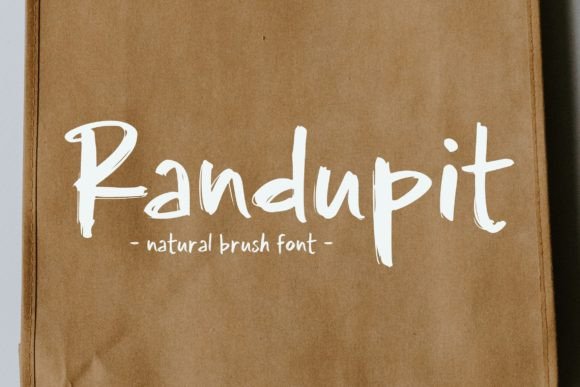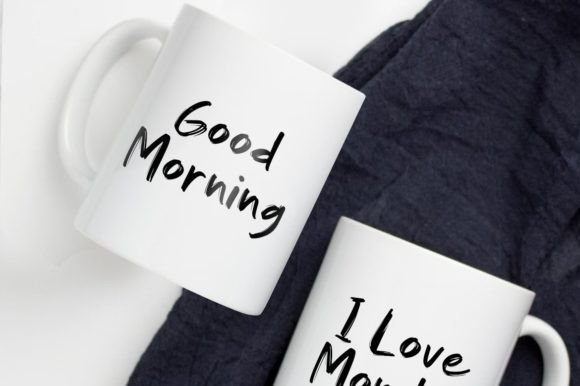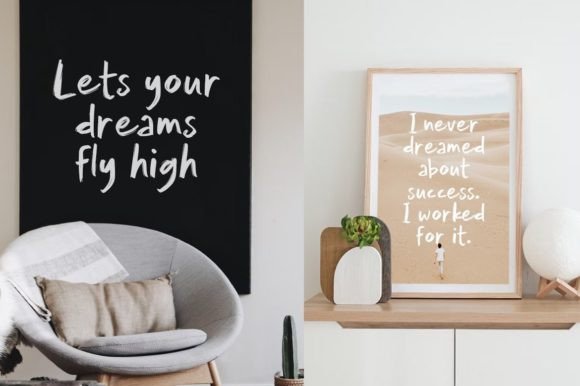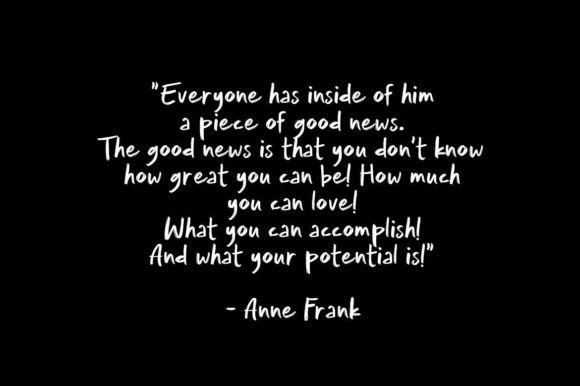
About Randupit Font
“Randupit” is a delightful and natural brush-style handwritten font that exudes authenticity and charm. Its organic and free-flowing design makes it a versatile choice for a wide range of creative projects. Whether you’re crafting, designing digital artworks, creating presentations, or making greeting cards, “Randupit” offers a genuine and handmade aesthetic that adds character and warmth to your creations.
The font’s brush-style appearance gives it a rustic and artisanal vibe, making it perfect for projects that require a handmade touch. Its irregular strokes and playful letterforms capture the essence of casual handwriting, adding a personal and approachable feel to your designs. Whether used for DIY crafts or digital artworks, “Randupit” infuses your projects with a sense of creativity and authenticity.
“Randupit” is incredibly versatile and can adapt to various occasions and themes. Its natural and brushy texture creates a visually appealing and unique look, making it suitable for both casual and creative projects. The font’s handmade quality ensures that it resonates with viewers, creating a connection between the design and its audience.
Embrace the natural and handcrafted charm of “Randupit” and explore its potential in your creative endeavors. Its genuine and playful style makes it a favorite choice for designers seeking an authentic and artistic touch. With “Randupit,” you can infuse your projects with a sense of creativity and handmade appeal, making it a go-to font for a wide range of occasions and design needs.